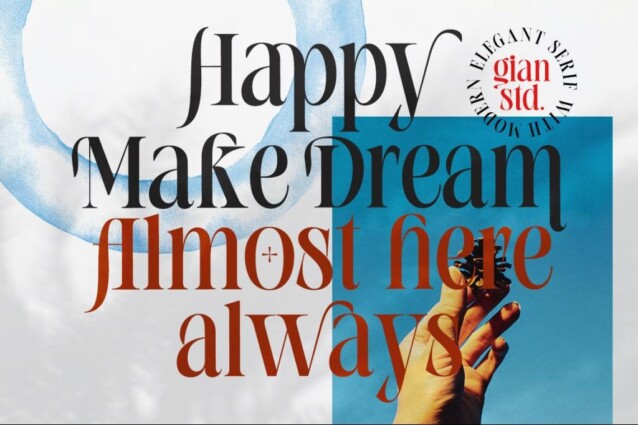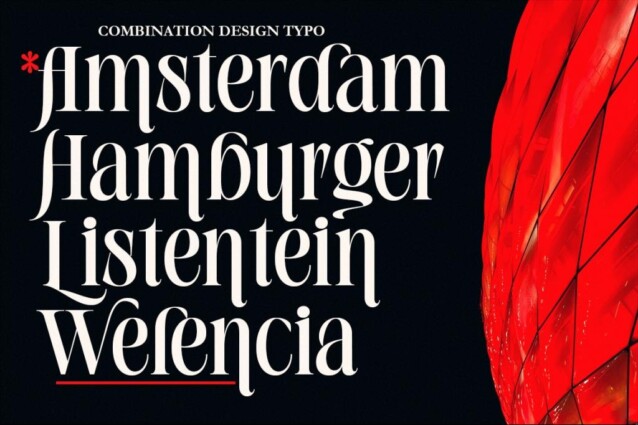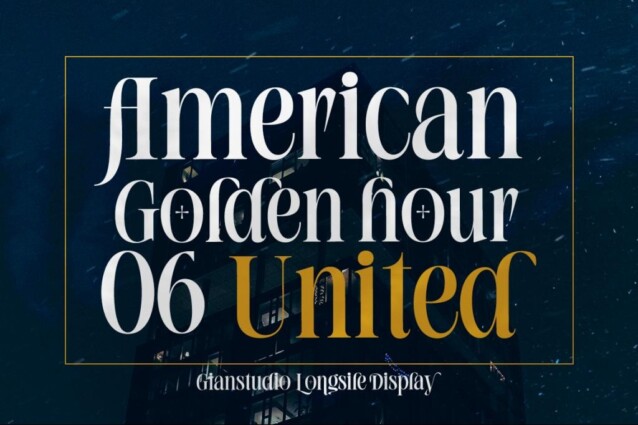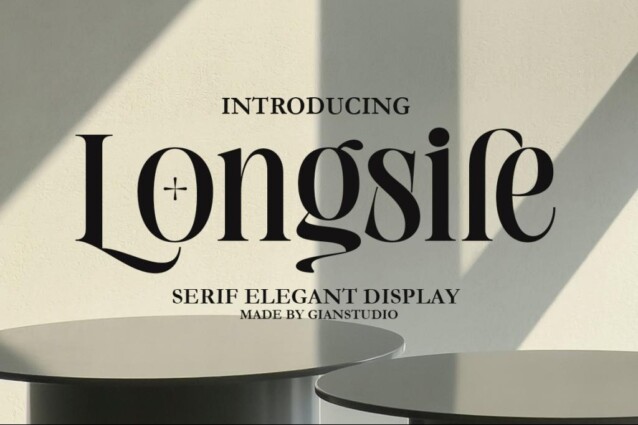
Longsile Font is a creative stylish ligature serif font crafted & designed by gianstudio12. Each letter is beautifully crafted which has an elegant look that attracts a tall, minimalist and slender shape. Longsile would be perfect for invitations, logos & branding, photography, advertising, watermarks, social media posts, product packaging, product designs, labels, wedding designs, stationery, special events or anything else needed to create a theme.
Longsile